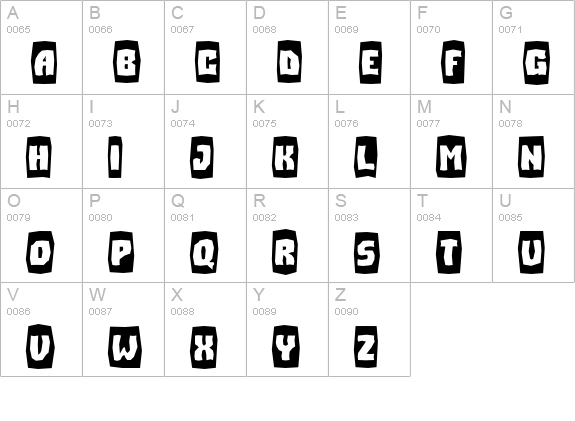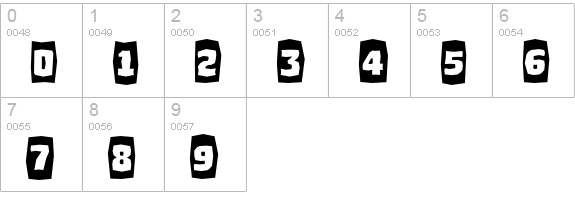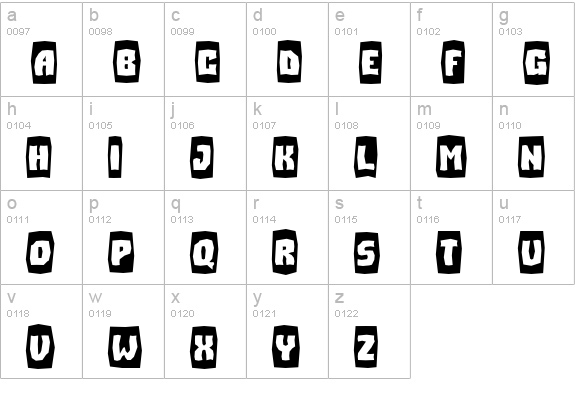
a_SimplerCmBrk Bold is a strong, high-contrast variant in the a_SimplerCmBrk typeface family \xE2\x80\x94 well suited to headlines, attention-grabbing titles, and strong calls-to-action.
The SimplerCmBrk Bold font is a versatile and modern typeface that exudes confidence and professionalism. With its bold and eye-catching design, this font is perfect for making a bold statement in your designs. Whether you're creating a logo, poster, or website, the SimplerCmBrk Bold font will help you stand out from the crowd. Best of all, this font is available for free download at FontsMarket.com, making it easily accessible for all your design needs. Add a touch of sophistication and style to your projects with the SimplerCmBrk Bold font today!